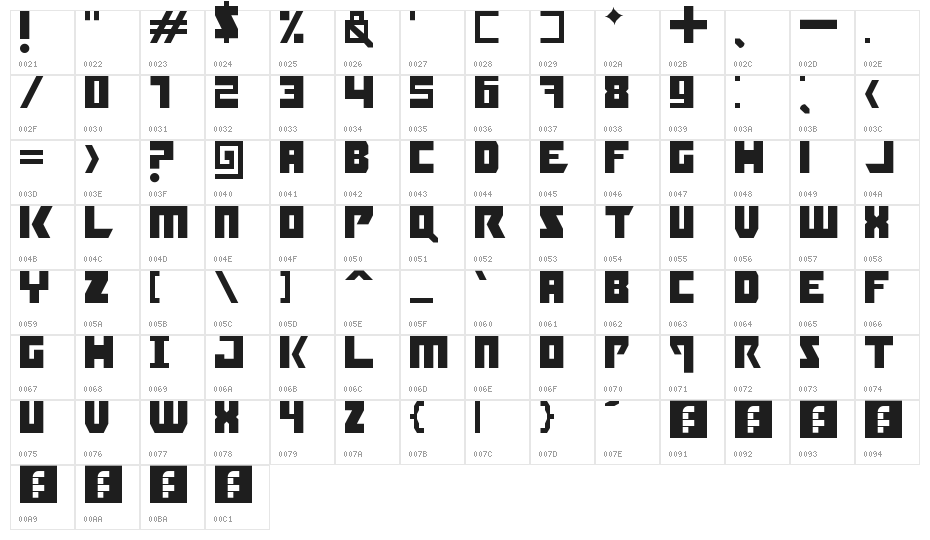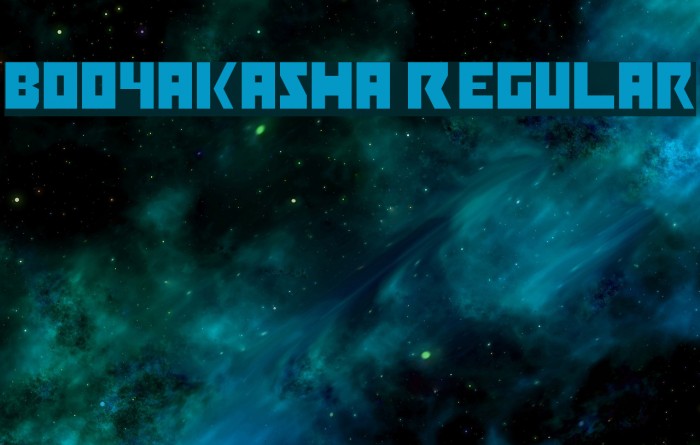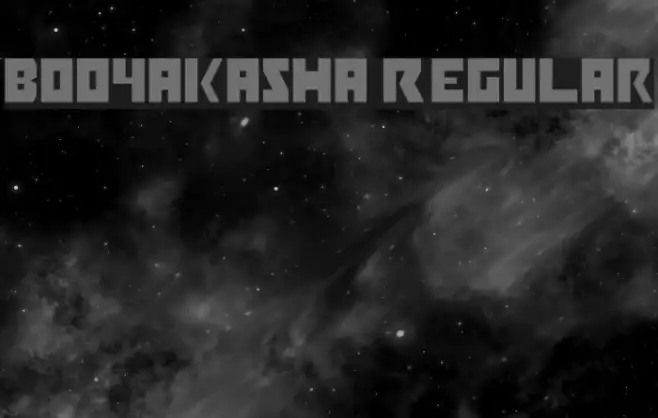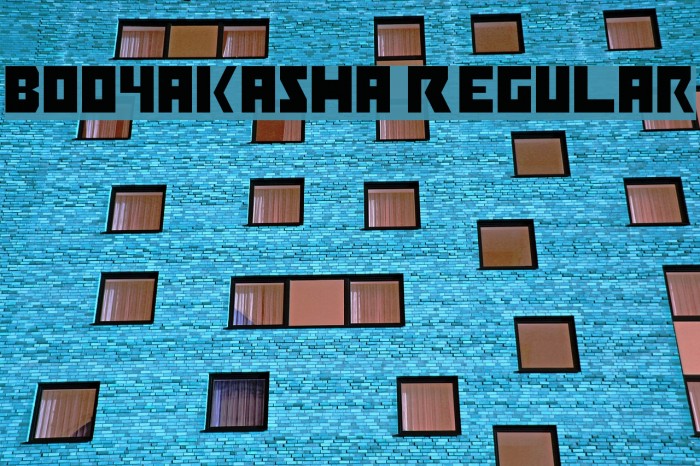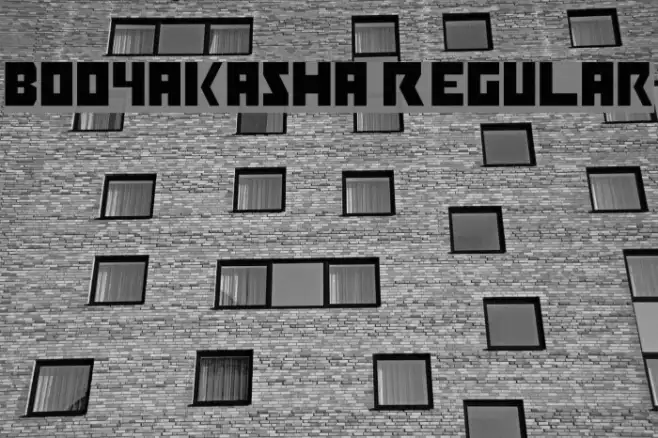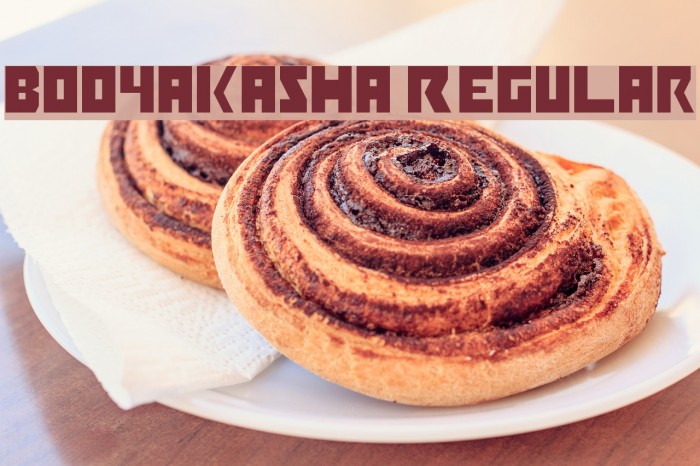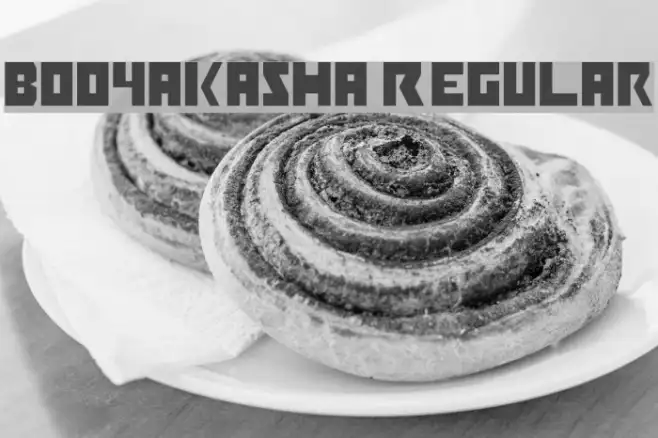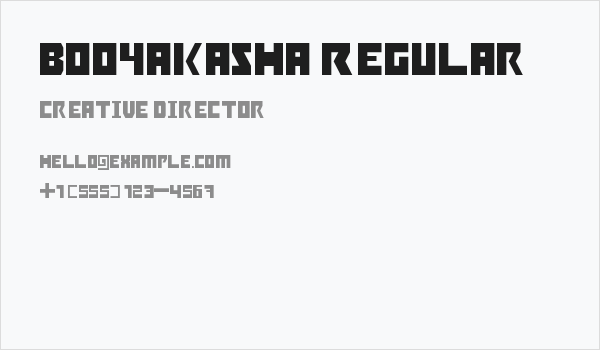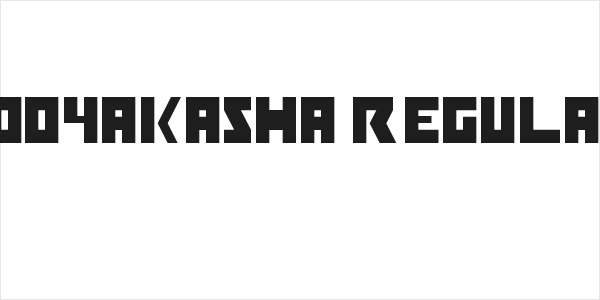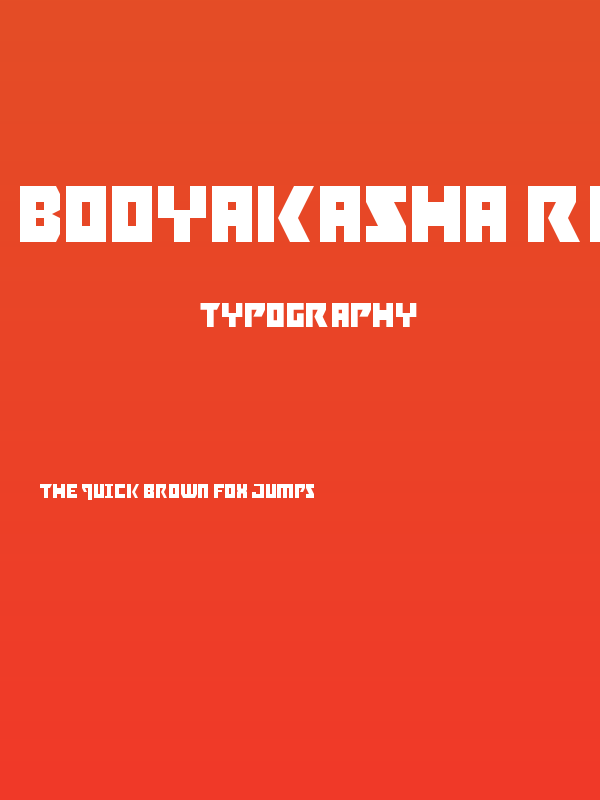
Booyakasha Regular Font
Booyakasha Regular Description
This font features a bold, geometric design with strong, angular lines and a blocky appearance. The characters are uniformly wide, giving it a monospaced feel, though it is not strictly monospaced. The uppercase and lowercase letters share a similar height, enhancing its bold and impactful presence. The numbers and special characters maintain the same bold, angular style, ensuring consistency across all glyphs. This font's design is reminiscent of retro or futuristic themes, making it suitable for projects that require a strong visual impact.
| Overall Style | Futuristic, Retro |
| Proposed Projects | Ideal for posters, video game graphics, branding, and any project needing a strong, futuristic aesthetic. |